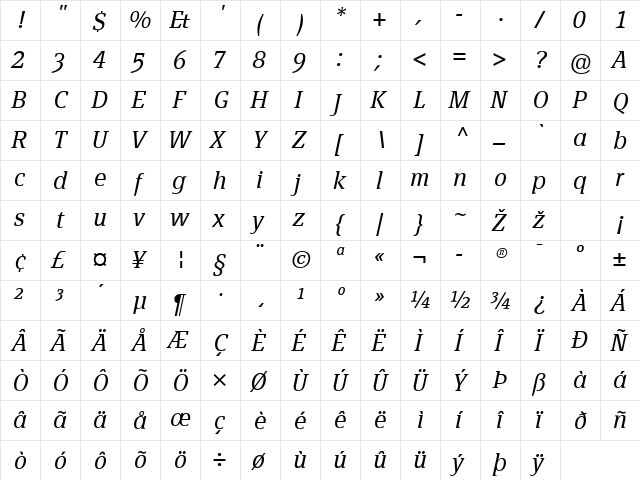
PageSerifTF-LightItalic Regular Font Preview
| Foundry | Albert Boton, published by FontShop International for the FontFont Library |
| Designer | Albert Boton |
Design Context for PageSerifTF-LightItalic Typeface
PageSerifTF-LightItalic carries the refined structure of traditional serif typography, with bracketed terminals and considered proportions that communicate credibility and craft. Its italic angle brings a sense of urgency and motion to the letterforms. Its slender proportions lend an understated elegance to any composition.
Pro Tip: Set PageSerifTF-LightItalic at slightly larger body copy sizes than you would a regular-weight serif to compensate for its delicate stroke contrast.